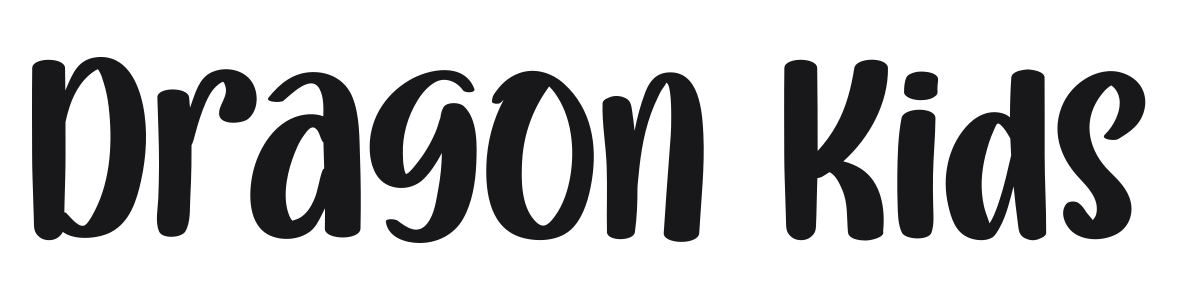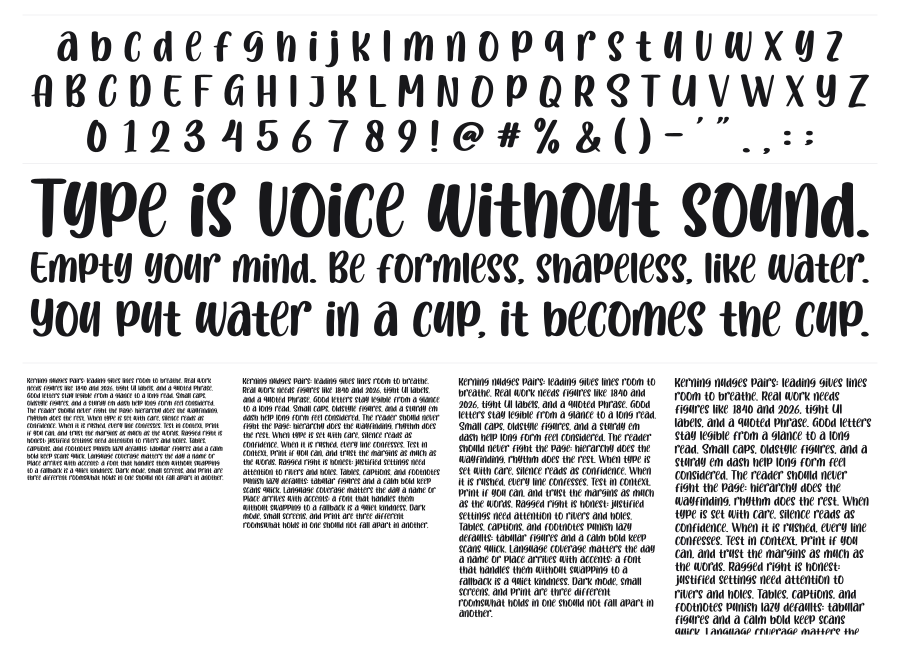
Dragon Kids
by Etik Fatimah · Website
Dragon Kids is a bold upright casual script with chunky, rounded strokes and a lively calligraphic base. The heavy weight and bouncy rhythm make it feel energetic without being chaotic, sitting somewhere between handwritten warmth and display confidence. It works well for titles, packaging, and any project that needs personality without going full novelty.